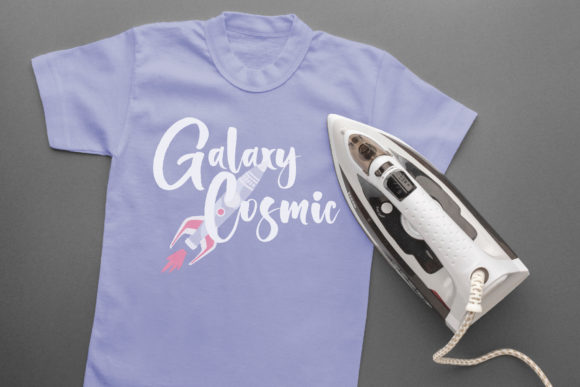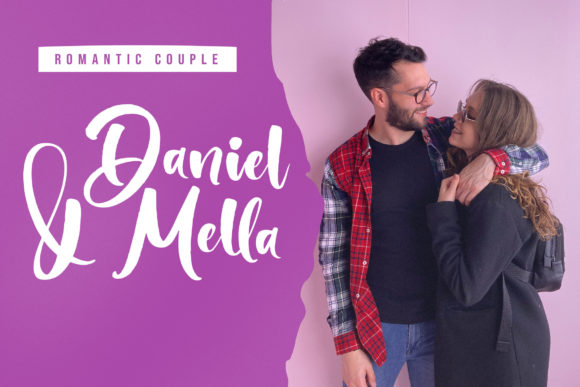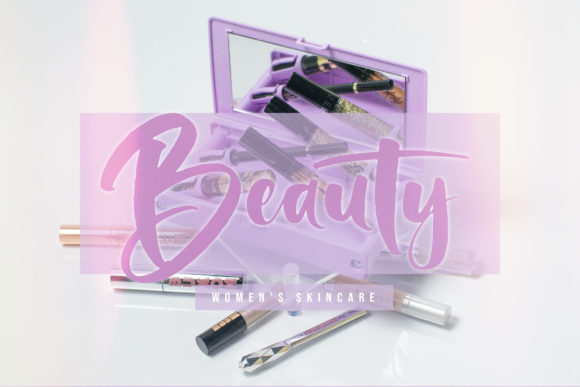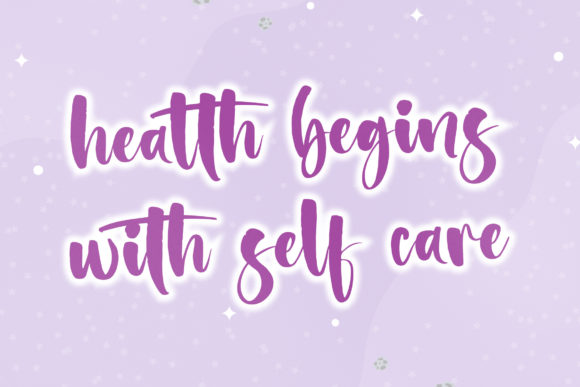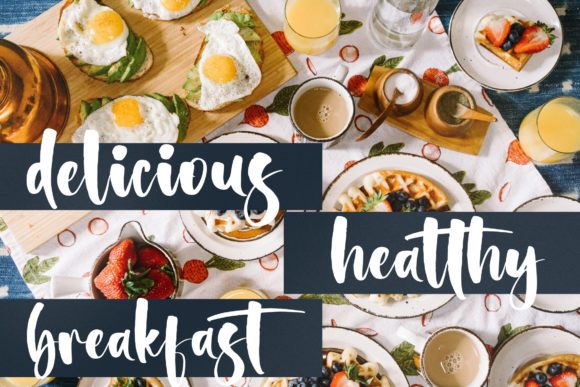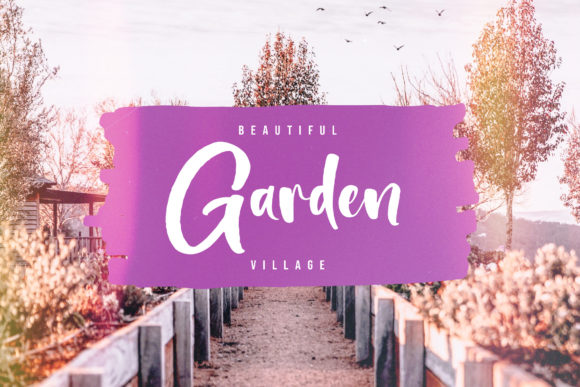
Introducing Gelaktus Font: The Delicate and Flowing Script Font
Are you a designer or crafter looking for a font that exudes elegance and sophistication? Look no further than Gelaktus Font, a delicate and flowing script font that is sure to elevate your creative projects. With its natural flow and casual vibe, Gelaktus Font is the perfect addition to any design or craft project.
What Makes Gelaktus Font Special?
Gelaktus Font is a unique and versatile font that offers a range of features that set it apart from other script fonts. Here are just a few of the things that make Gelaktus Font special:
- Delicate and Flowing Design: Gelaktus Font features a delicate and flowing design that is perfect for creating elegant and sophisticated text. The font’s natural flow and casual vibe make it ideal for a wide range of creative projects, from wedding invitations to branding and packaging.
- PUA Encoded: Gelaktus Font is PUA (Private Use Area) encoded, which means that you can access all of the glyphs and swashes with ease. This makes it easy to customize your text and add unique touches to your designs.
- Wide Range of Glyphs and Swashes: Gelaktus Font includes a wide range of glyphs and swashes, giving you plenty of options for customizing your text. Whether you want to add a touch of elegance or a dash of whimsy, Gelaktus Font has got you covered.
The Benefits of Using Gelaktus Font
So why should you choose Gelaktus Font for your design or craft project? Here are just a few of the benefits of using this versatile and elegant font:
- Elegant and Sophisticated: Gelaktus Font is the perfect choice for designers and crafters who want to create elegant and sophisticated text. The font’s delicate and flowing design makes it ideal for projects that require a touch of luxury and refinement.
- Versatile: Gelaktus Font is a versatile font that can be used for a wide range of creative projects, from wedding invitations to branding and packaging. The font’s natural flow and casual vibe make it easy to pair with other fonts and design elements.
- Easy to Use: Gelaktus Font is PUA encoded, making it easy to access all of the glyphs and swashes. This means that you can focus on creating beautiful designs, rather than getting bogged down in complicated font formatting.
How to Use Gelaktus Font in Your Design or Craft Project
Using Gelaktus Font in your design or craft project is easy. Here are a few tips to get you started:
- Pair it with Other Fonts: Gelaktus Font pairs well with a range of other fonts, from serif and sans serif fonts to other script fonts. Experiment with different font combinations to find the perfect look for your project.
- Add Glyphs and Swashes: Gelaktus Font includes a wide range of glyphs and swashes that you can use to customize your text. Don’t be afraid to get creative and add your own unique touches to your design.
- Experiment with Different Sizes and Colors: Gelaktus Font looks great in a range of sizes and colors. Experiment with different sizes and colors to find the perfect look for your project.
Gelaktus Font is a delicate and flowing script font that is perfect for designers and crafters who want to create elegant and sophisticated text. With its natural flow and casual vibe, Gelaktus Font is the perfect addition to any design or craft project. Whether you’re creating wedding invitations, branding and packaging, or any other type of design or craft project, Gelaktus Font is sure to impress.